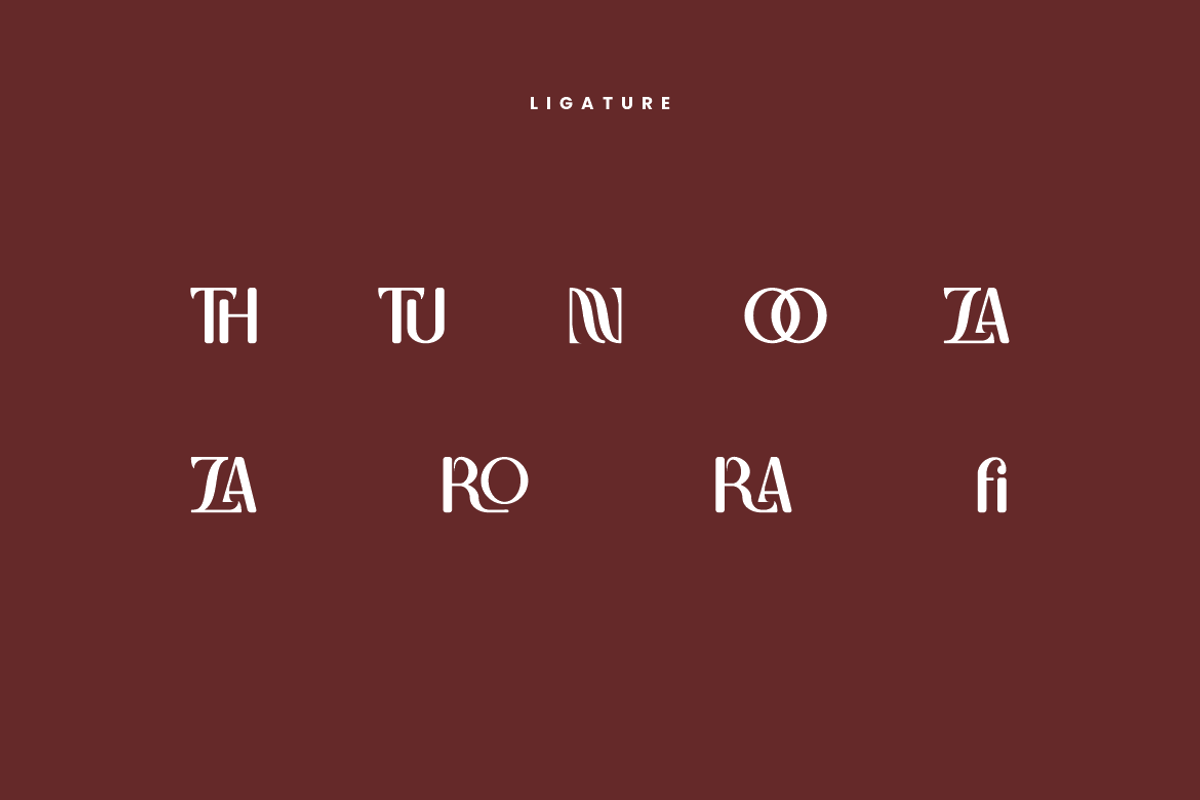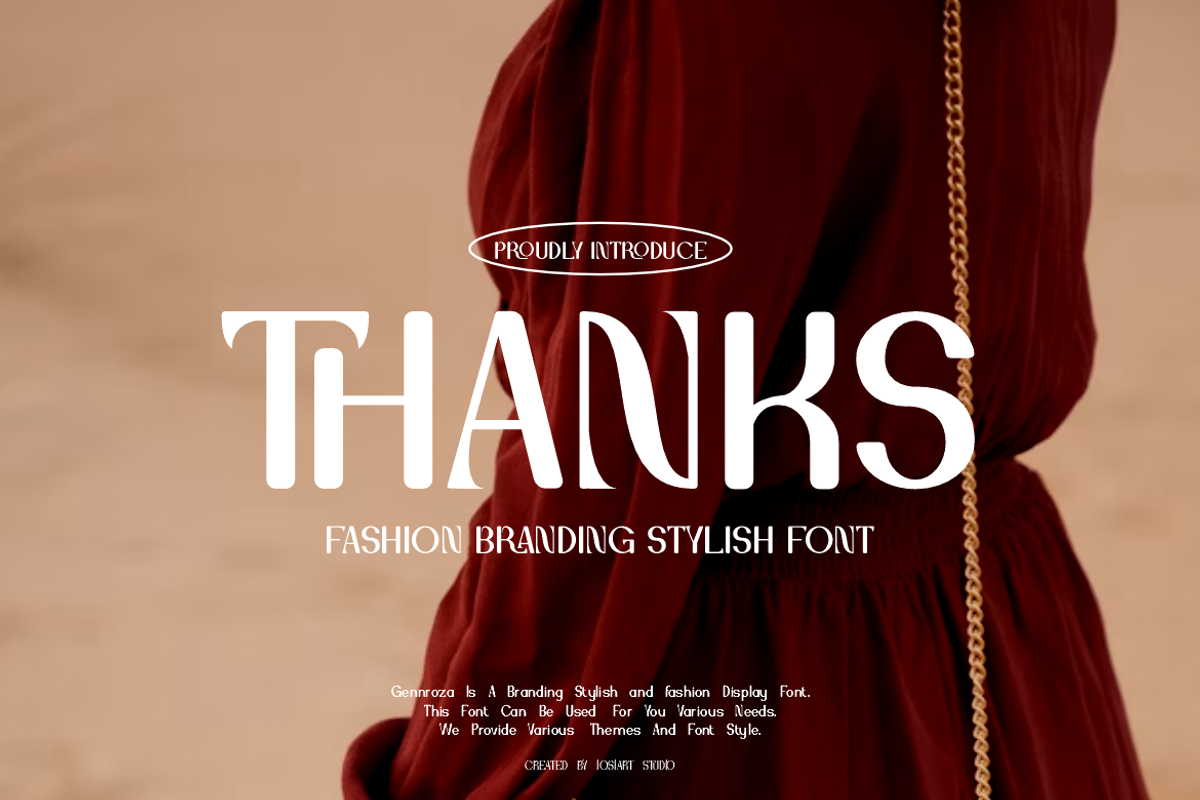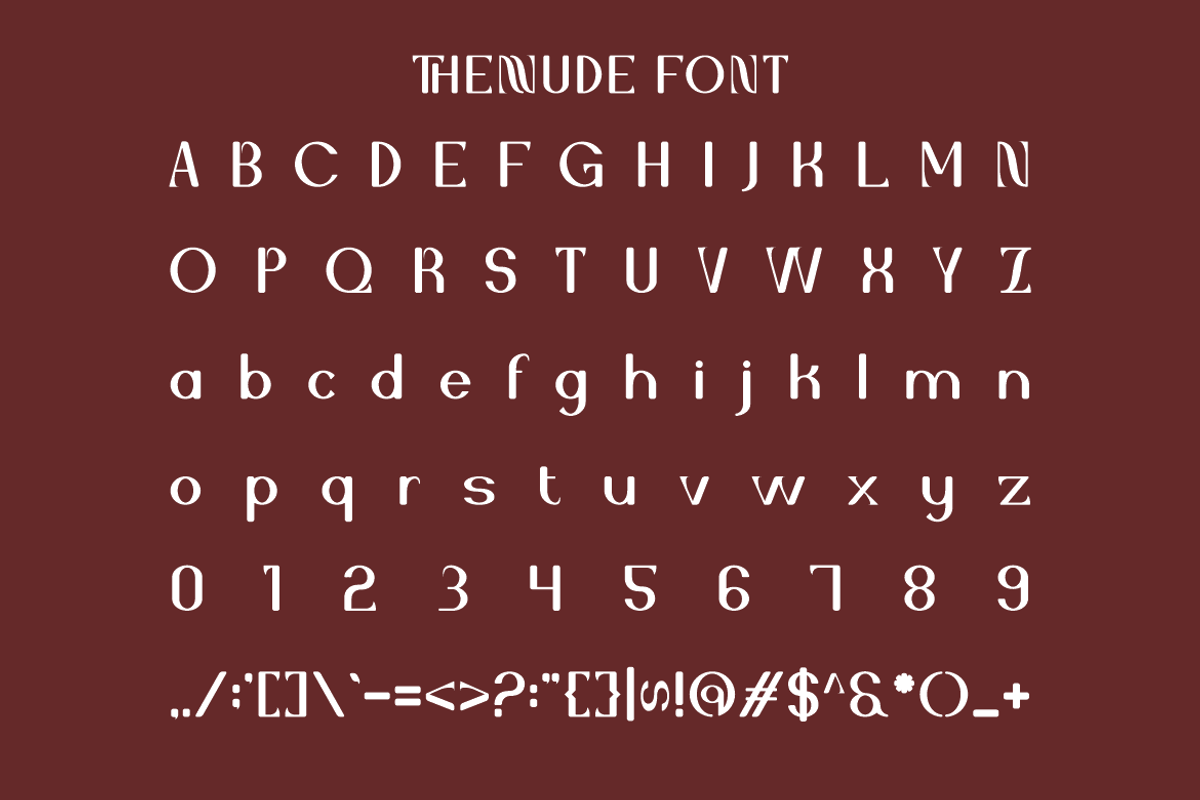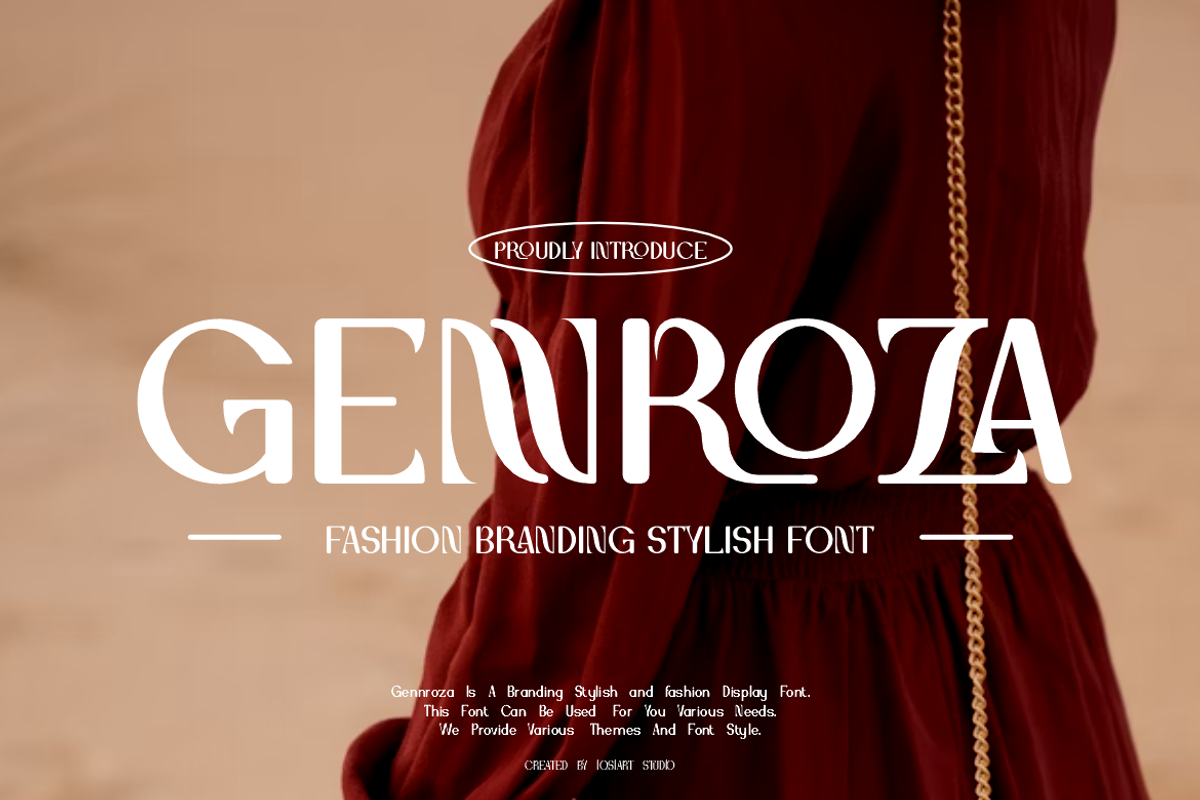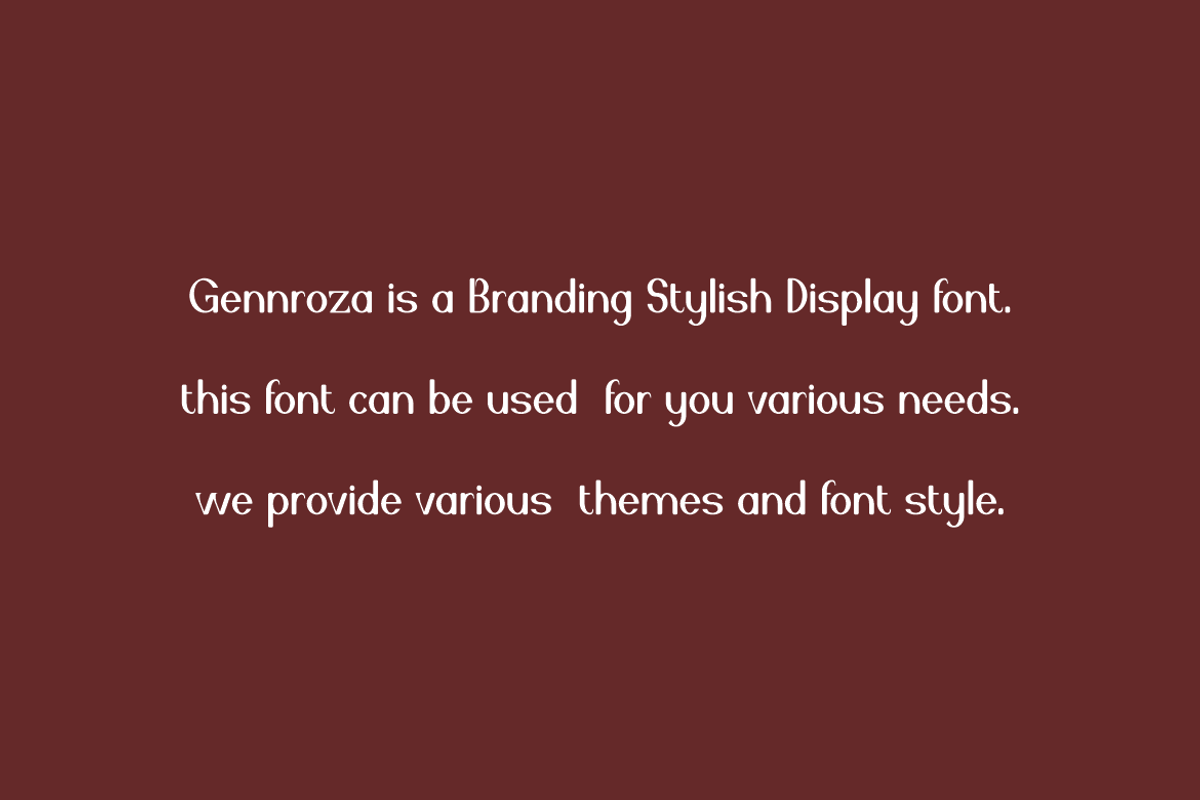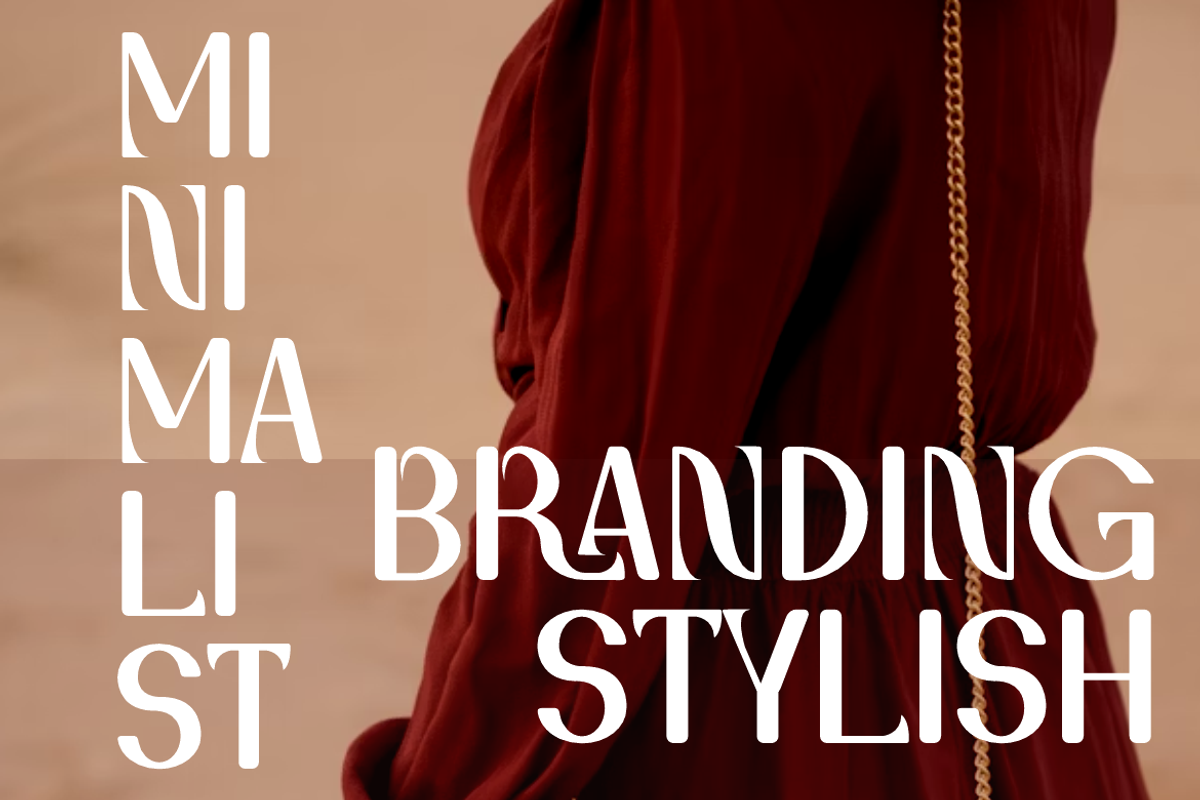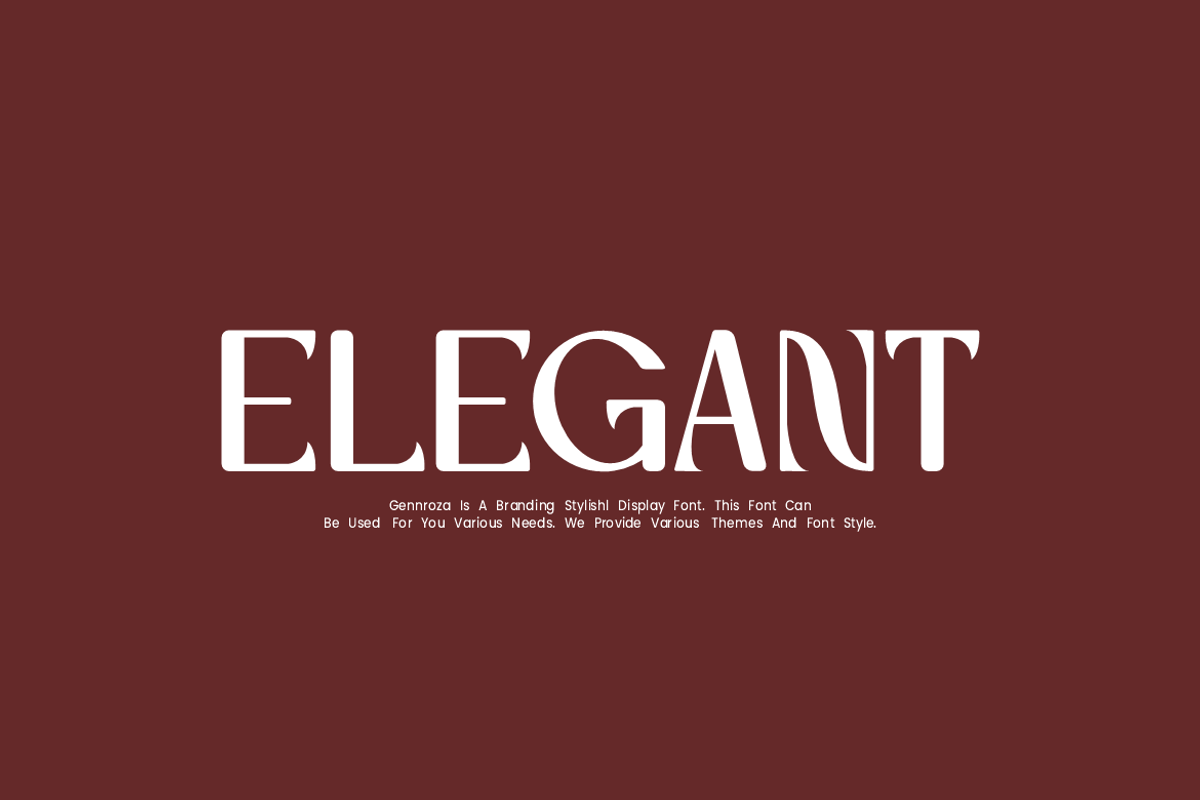
Gennroza - Branding Font
Gennroza Font is a best and authentic display font. This font can be used for your various needs. We provide various themes and font styles. visit our profile to get a wide variety of themes and different font styles you need.